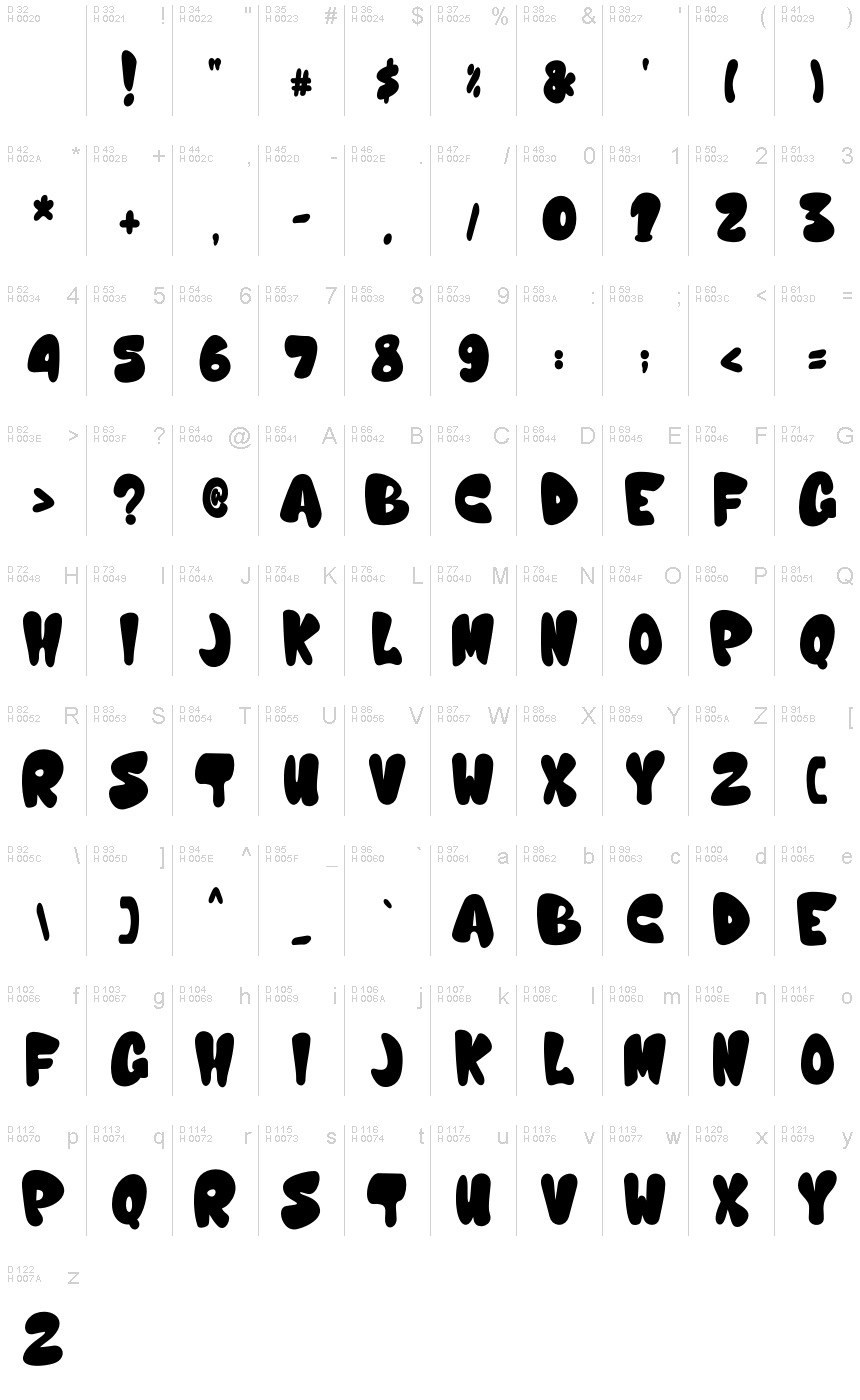
Nijikon japan - Personal use
Nijikon Japan springs to life with a playful boldness that encapsulates the whimsy of cartoons. Designed by Letterara, this display font boasts rounded edges and a friendly presence that invites viewers into a world of imagination and fun. The plump, bubbly letters exude warmth, making them perfect for engaging headlines or standout logos.
Its cheerful demeanor makes Nijikon Japan an excellent choice for children's books, animated movie titles, or any project seeking to add a touch of joy and lightheartedness. Whether splashed across the cover of a comic book or emblazoned on playful merchandise, this font is sure to capture hearts with its endearing charm.